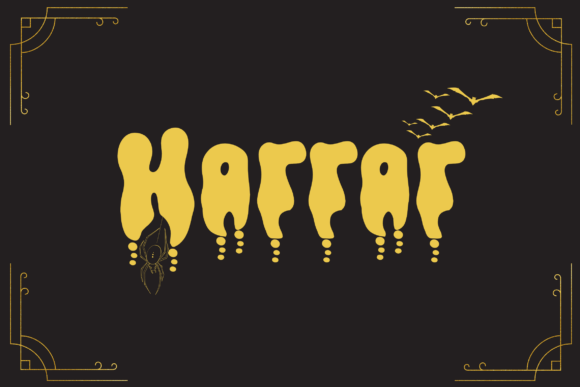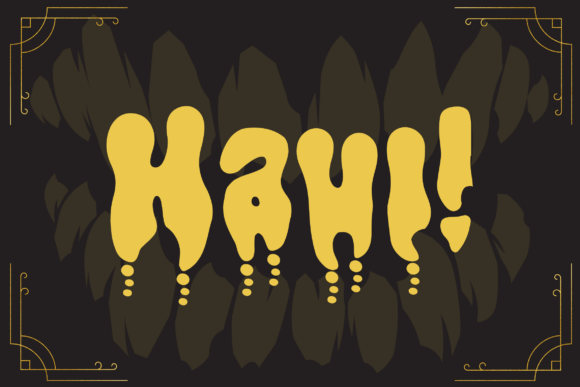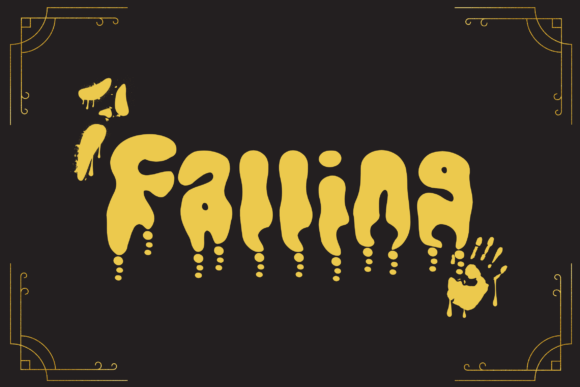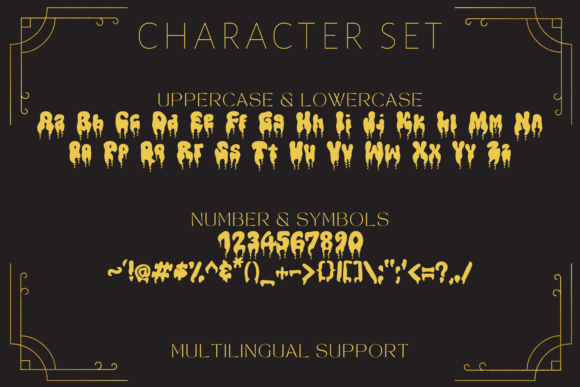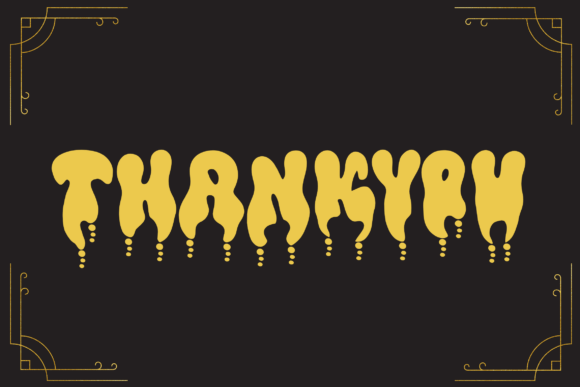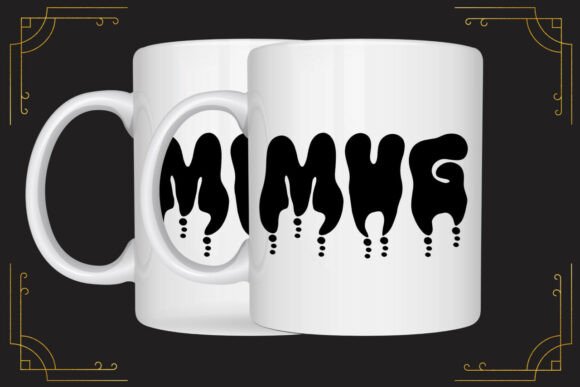
Unleash Bold Horror Energy with Dripcore Font: A Designer’s Dream
Are you a designer or crafter looking for a font that can add a touch of bold horror energy to your projects? Look no further than Dripcore Font. This font is designed to bring a sense of eeriness and tension to your designs while maintaining clean readability. In this article, we’ll explore the features and benefits of Dripcore Font and how it can elevate your designs.
Thick and Confident Strokes with Artful Drips
Dripcore Font boasts thick and confident strokes that give your titles a bold and eye-catching appearance. The artful drips added to the font create a sense of tension and horror energy, perfect for Halloween drops, haunted attractions, game graphics, metal gigs, and spooky party kits. The drips are carefully crafted to add a touch of eeriness without compromising the clarity of the text.
Clean Readability and Sturdy Shapes
One of the standout features of Dripcore Font is its clean readability. The font is designed to be easy to read, even at smaller sizes, making it perfect for use on shirts, posters, covers, and thumbnails. The sturdy shapes of the letterforms ensure that your titles pop and stand out, even from a distance.
Perfect for Outlines, Glows, and Gritty Textures
Dripcore Font loves outlines, glows, and gritty textures, which makes it easy to create professional-looking mockups. Even quick designs can look finished and polished with the addition of these effects. This feature is especially useful for designers who need to create mockups quickly and efficiently.
Where Dripcore Font Shines
Dripcore Font shines when used to create short phrases or titles, such as “Night Parade,” “Blood Moon,” or a team name with numbers. Adding soft shadows, inner lines, or sticker borders can enhance the depth and visual appeal of the design. The font’s spacing is tuned for headlines, making it easy to create layouts that come together in minutes.
Fast Setup and Fierce Results
Clear on Mobile and Perfect for Listings
In today’s digital age, it’s essential to ensure that your designs look great on mobile devices. Dripcore Font remains clear and legible even on smaller screens, making it perfect for listings and social media graphics. This feature helps your designs stand out and grab attention, even on smaller screens.
Launch Complete Bundles with Less Tweaking
With Dripcore Font, you can launch complete bundles for events, socials, and print-on-demand with less tweaking. The font’s ease of use and versatility make it easy to create a cohesive look across multiple designs, saving you time and effort.
Dripcore Font is a powerful tool for designers and crafters looking to add a touch of bold horror energy to their projects. With its thick and confident strokes, artful drips, and clean readability, it’s perfect for a wide range of applications. Whether you’re creating Halloween drops, haunted attractions, game graphics, or metal gigs, Dripcore Font is sure to elevate your designs and help you achieve fierce results.